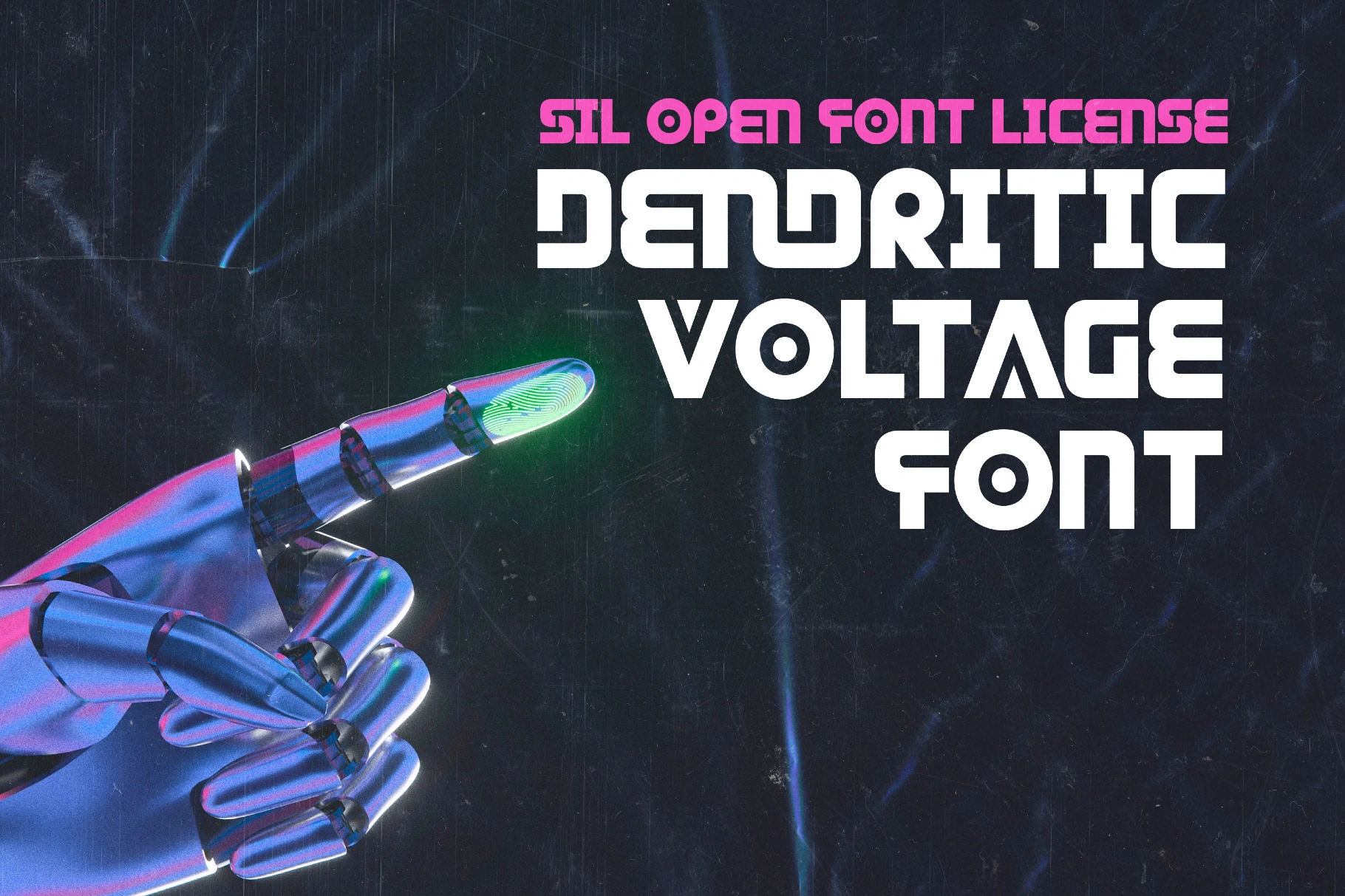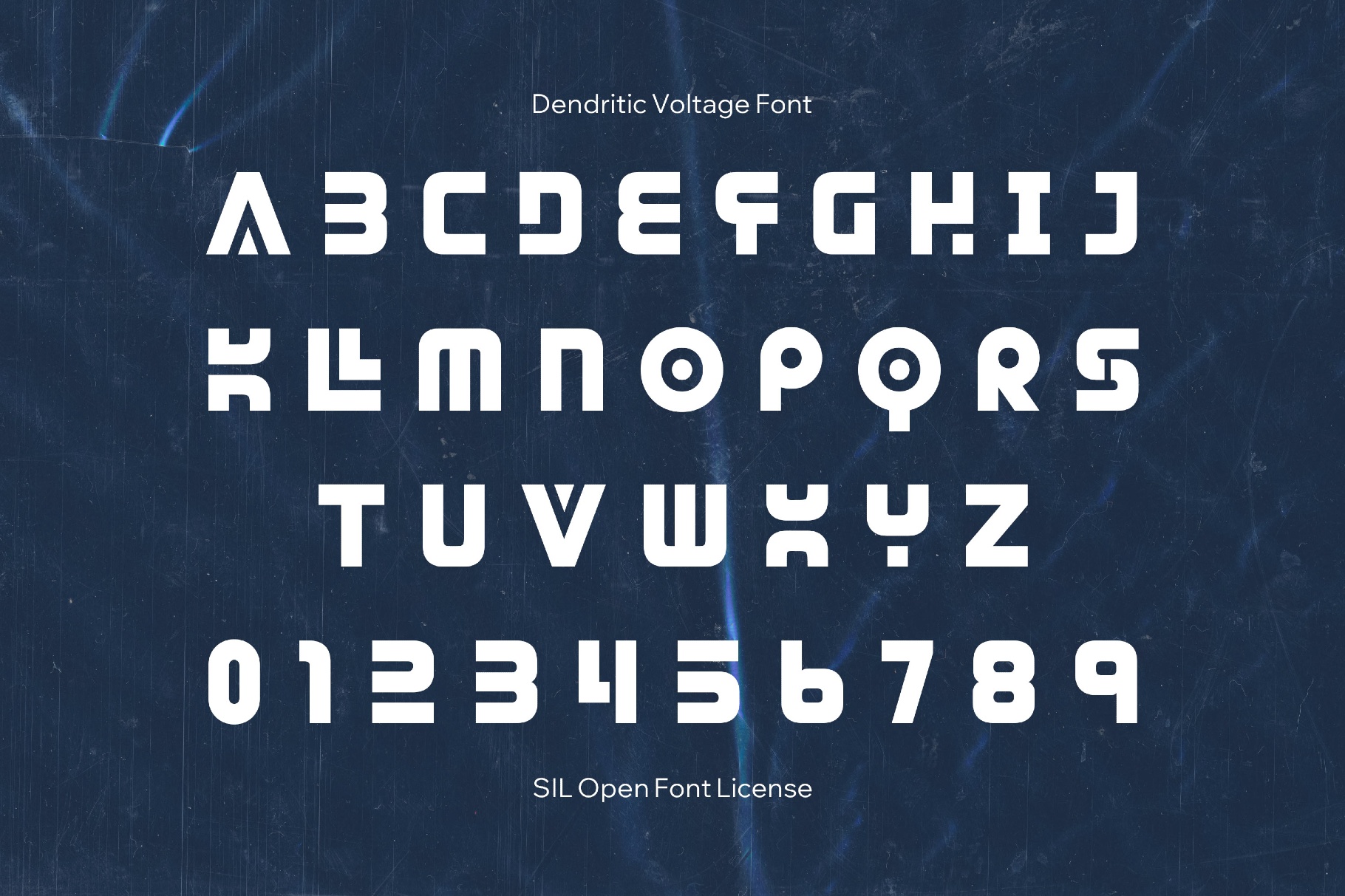
Dendritic Voltage Font
Dendritic Voltage
This jagged, techno Y2K font comes with industrial caps set in dense grids. It evokes punk magazine cuts and glitch-era graphic design. And it’s a strong pick for experimental posters, electronic or industrial album art, EDM or rave flyers, synthwave artwork, retro-futuristic gaming overlays, tech-event branding, motion titles, and sticker-style graphics.
- Only uppercase letters A–Z.
- International characters with multilingual support across extended Latin scripts.
- Extended support for mathematical symbols and metrics.
- Basic ligatures.